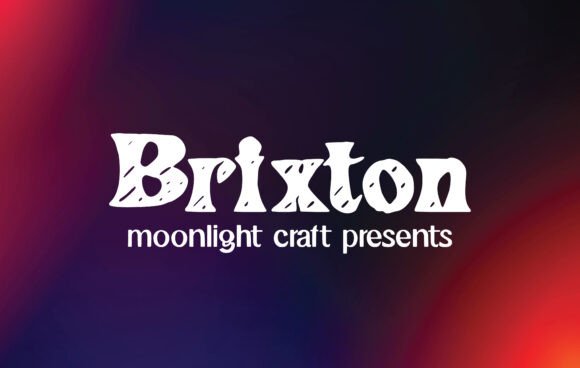
The Brixton Font: A Creative Game-Changer for Designers and Crafters
I’ll never forget the struggle I faced while working on a branding project for a trendy boutique. My client wanted a logo that exuded elegance and playfulness, but I was stuck with a bland, generic font that just wouldn’t cut it. That’s when I stumbled upon the Brixton font, and it completely transformed my design. In this article, I’ll share my love for this beautiful handwritten font, its features, and how to make the most of it in various design platforms.
An Honest Review of Brixton Font
What I Love About Brixton Font ✨
- 💫 Unique and elegant handwritten style that’s perfect for logos, branding, and quotes
- ✅ Highly legible, even in smaller sizes
- 🎨 Versatile and adaptable to various design contexts, from modern to vintage
- 📚 Extensive character set, including OpenType features and glyphs
While Brixton font is an excellent choice, it’s not without its limitations. For instance:
- 🤔 Some users might find the font a bit too ornate for certain design projects
- ⚠️ Limited availability of stylistic alternates, which might restrict design flexibility
The Backstory of Brixton Font
Brixton font was designed with the intention of creating a beautiful, elegant handwritten font that would inspire creativity and add a touch of sophistication to design projects. The designer aimed to craft a font that would be versatile, adaptable, and highly legible, making it perfect for logos, branding, and quotes.
Q: What type of design projects is Brixton font best suited for?
A: Brixton font is ideal for logos, branding, quotes, and any design project that requires a touch of elegance and sophistication.
Q: Is Brixton font available in multiple languages?
A: Yes, Brixton font supports multiple languages. However, the font’s character set and language support may vary depending on the font version.